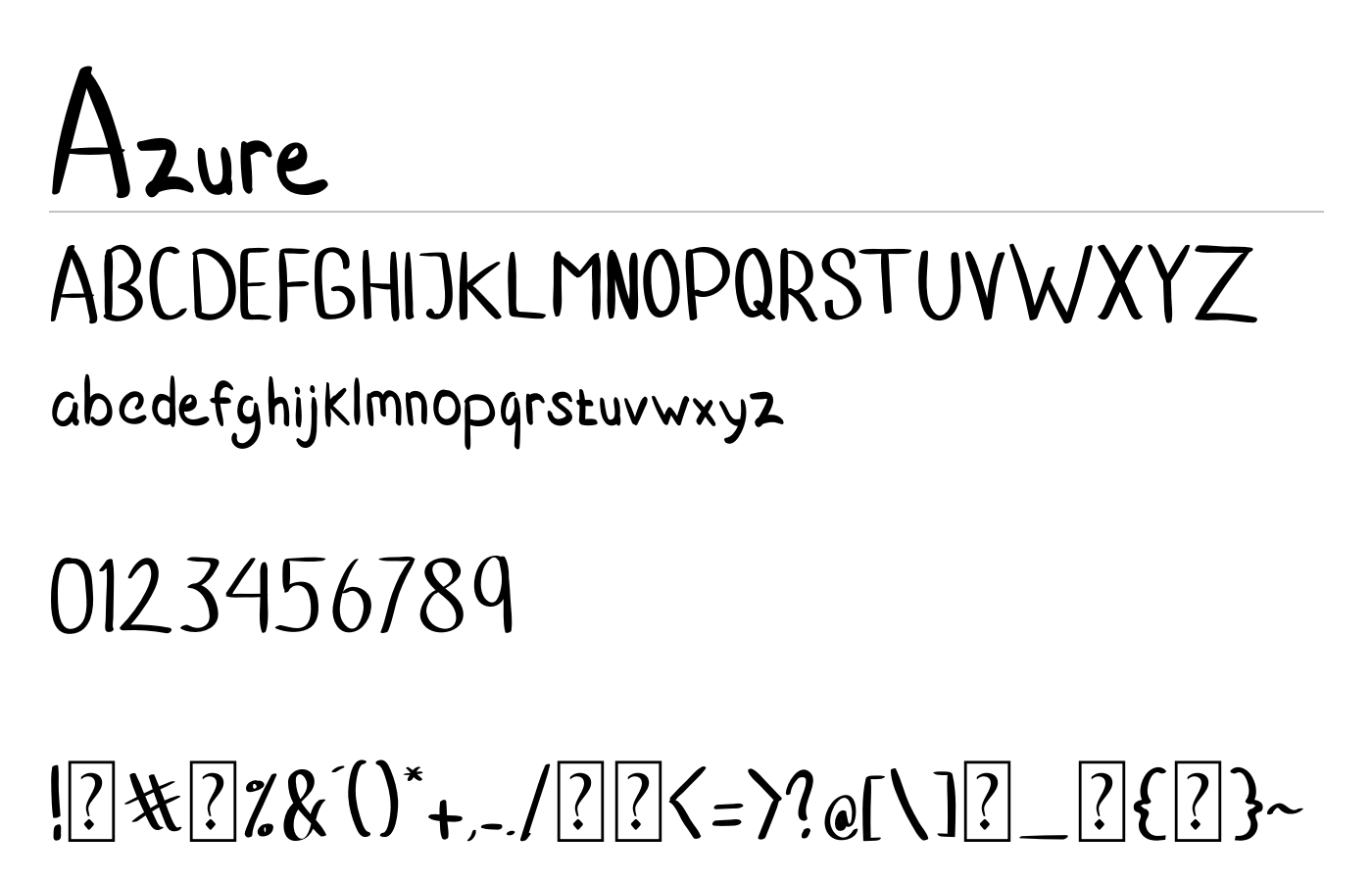
Azure Font is a playful, casual sans serif with a hand-drawn, slightly irregular style that gives it a friendly and approachable feel. Its tall, narrow letterforms and subtle stroke variation make it perfect for informal, creative projects like children’s books, invitations, or websites that want a warm, personal touch. This font works best in headlines or short texts where a cheerful, human vibe is needed.
Azure Font
About Azure Font
| Font family | Azure Font |
| Designer | Nanda Deni Hermawan |